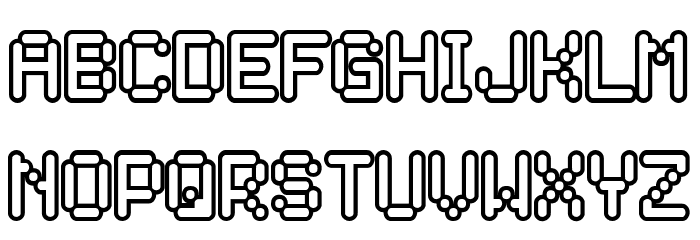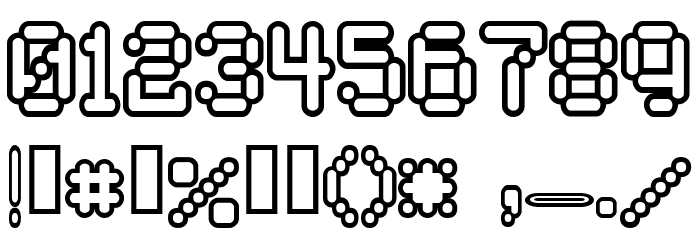
Rocketman Font
This font features a unique and futuristic design, characterized by its bold, geometric shapes and interconnected lines. Each character is constructed with a series of rounded rectangles and circles, giving it a distinctive, modular appearance. The font's structure is consistent across both uppercase and lowercase letters, as well as numbers and special characters, maintaining a cohesive look. The use of outlines and negative space adds depth and dimension, making it stand out in any design. Its playful yet structured style makes it suitable for creative and modern projects.
A bold, geometric font with interconnected lines and modular shapes.
- Font: Rocketman
- Proposed Projects: Ideal for sci-fi themed designs, tech branding, video game titles, and futuristic posters.
- Overall Style: Futuristic, Modern